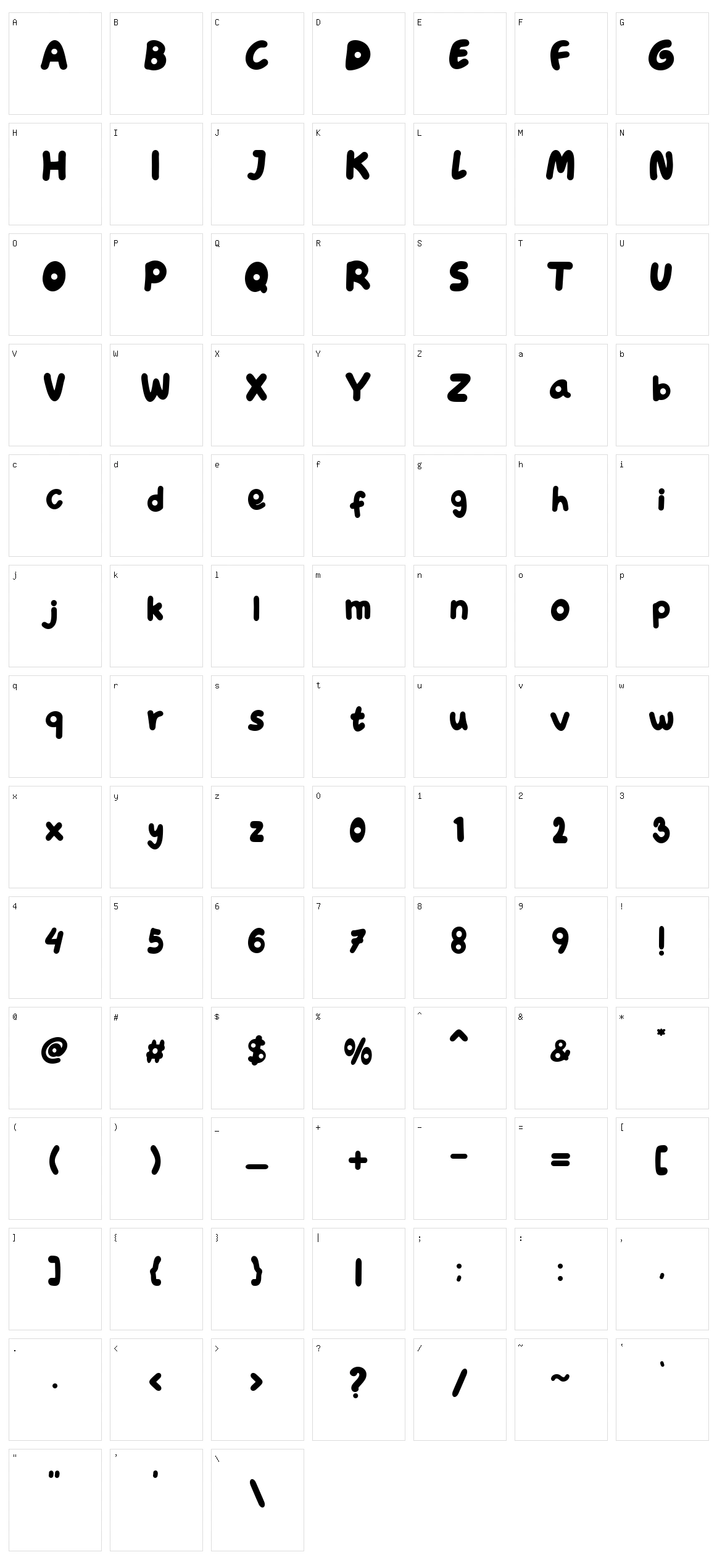
The free font Dantic is carefully designed by Scratch Design, showcasing a thoughtful balance of creativity and usability and falls under the Cartoon font style. When you download the ZIP file, it contains only 47.44 KB of font files, making it lightweight and quick to download. Please review the license details below to understand permitted usage and distribution rights. If license information is not available, we recommend using this font for personal projects only or contacting the author directly for commercial usage permissions.